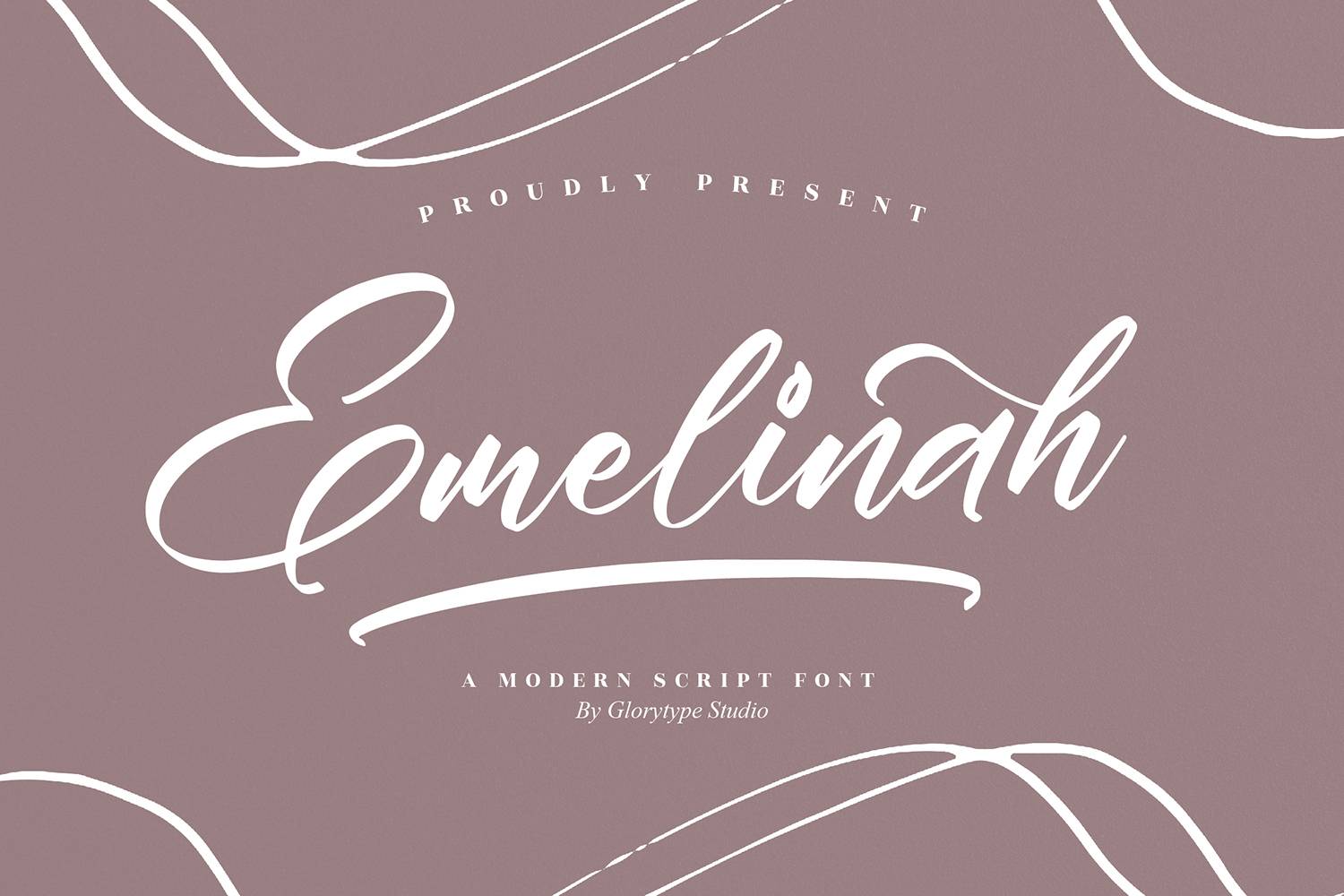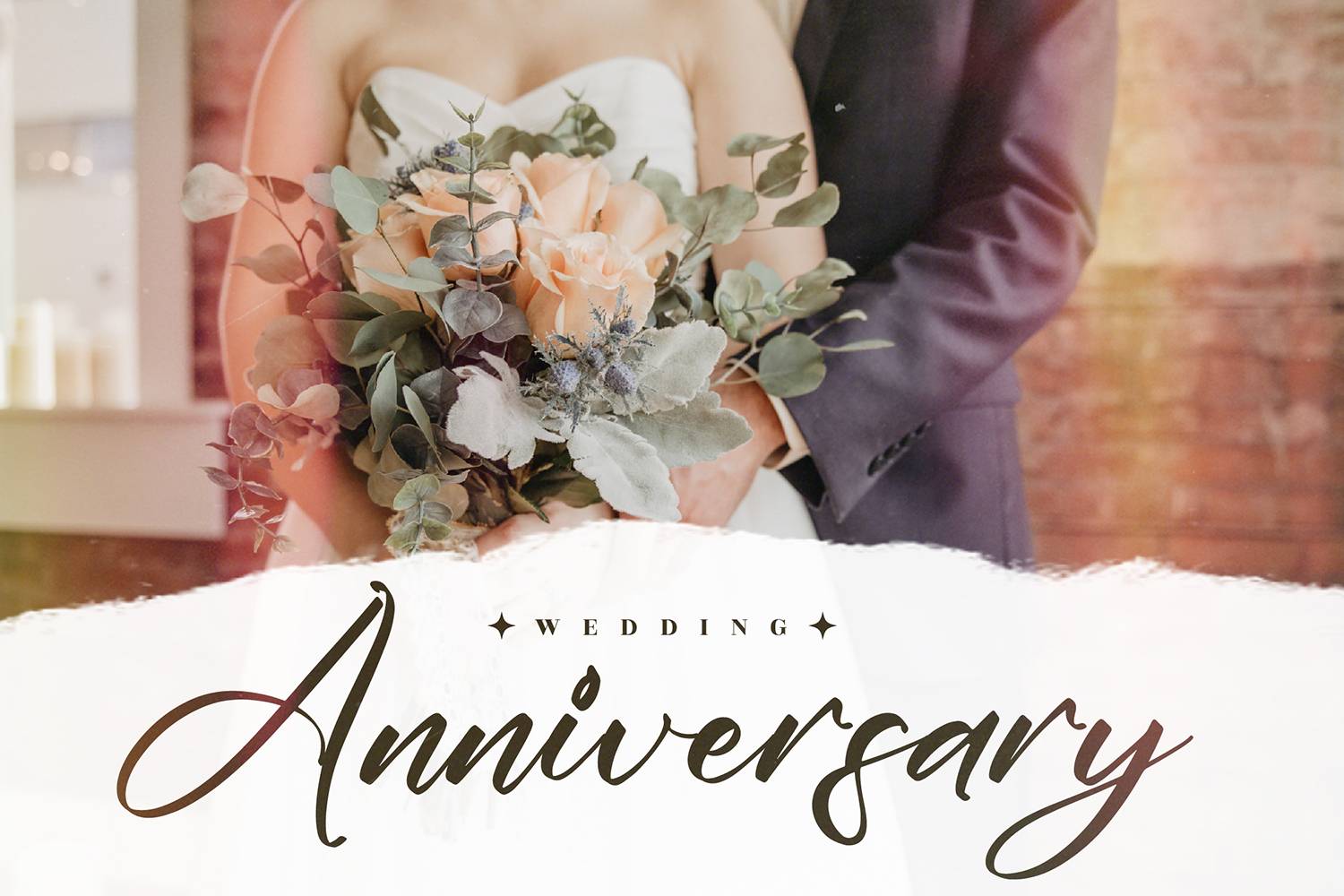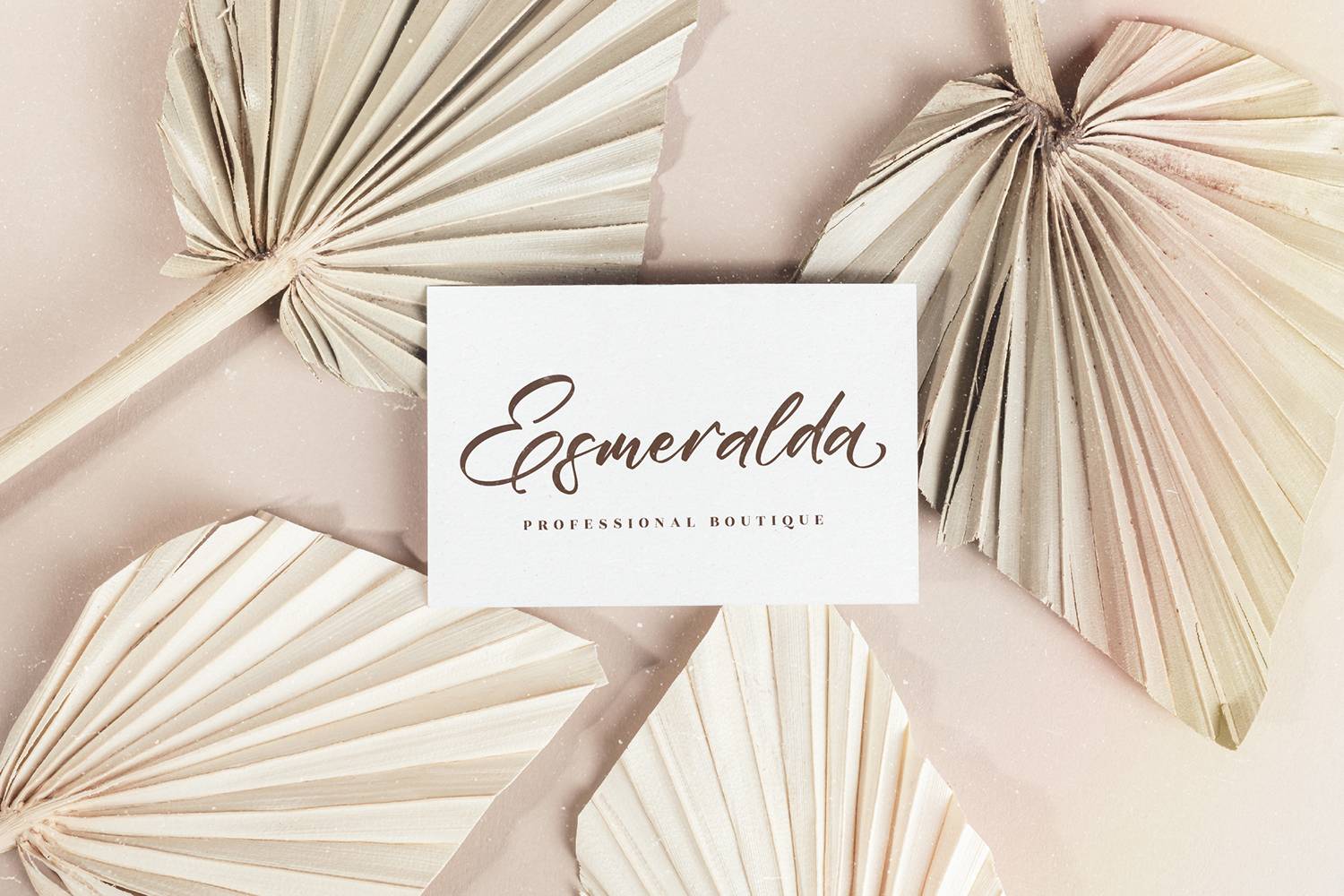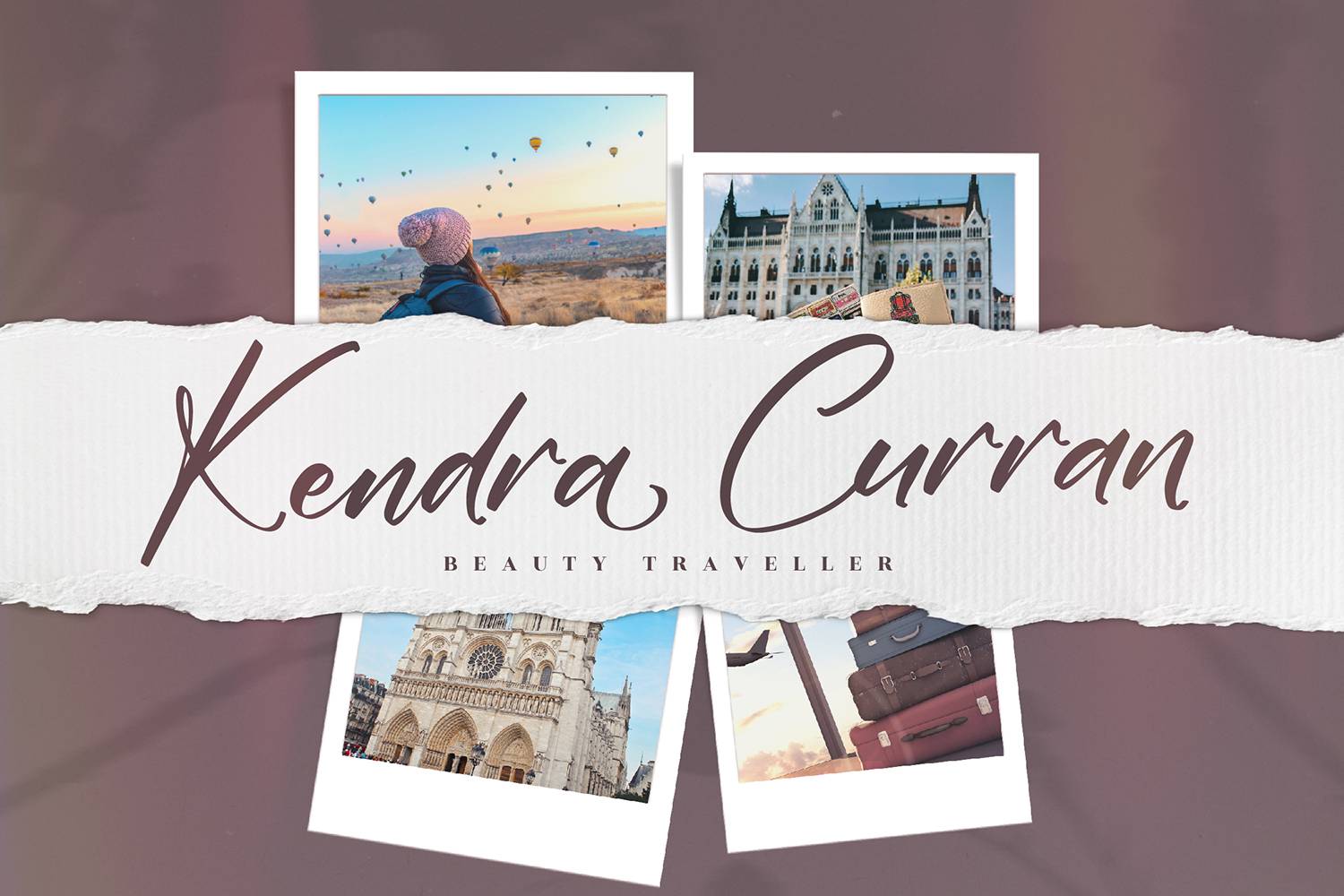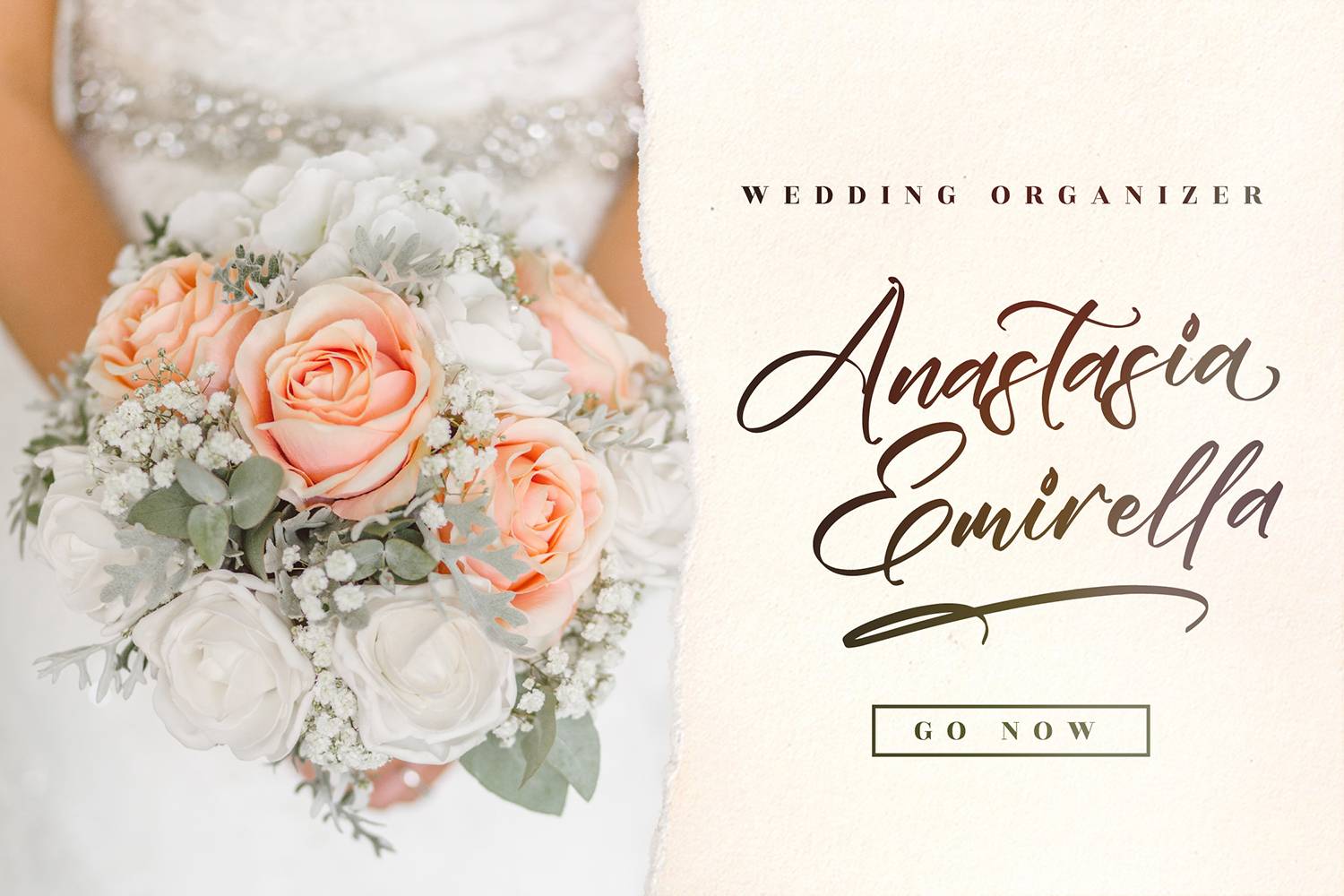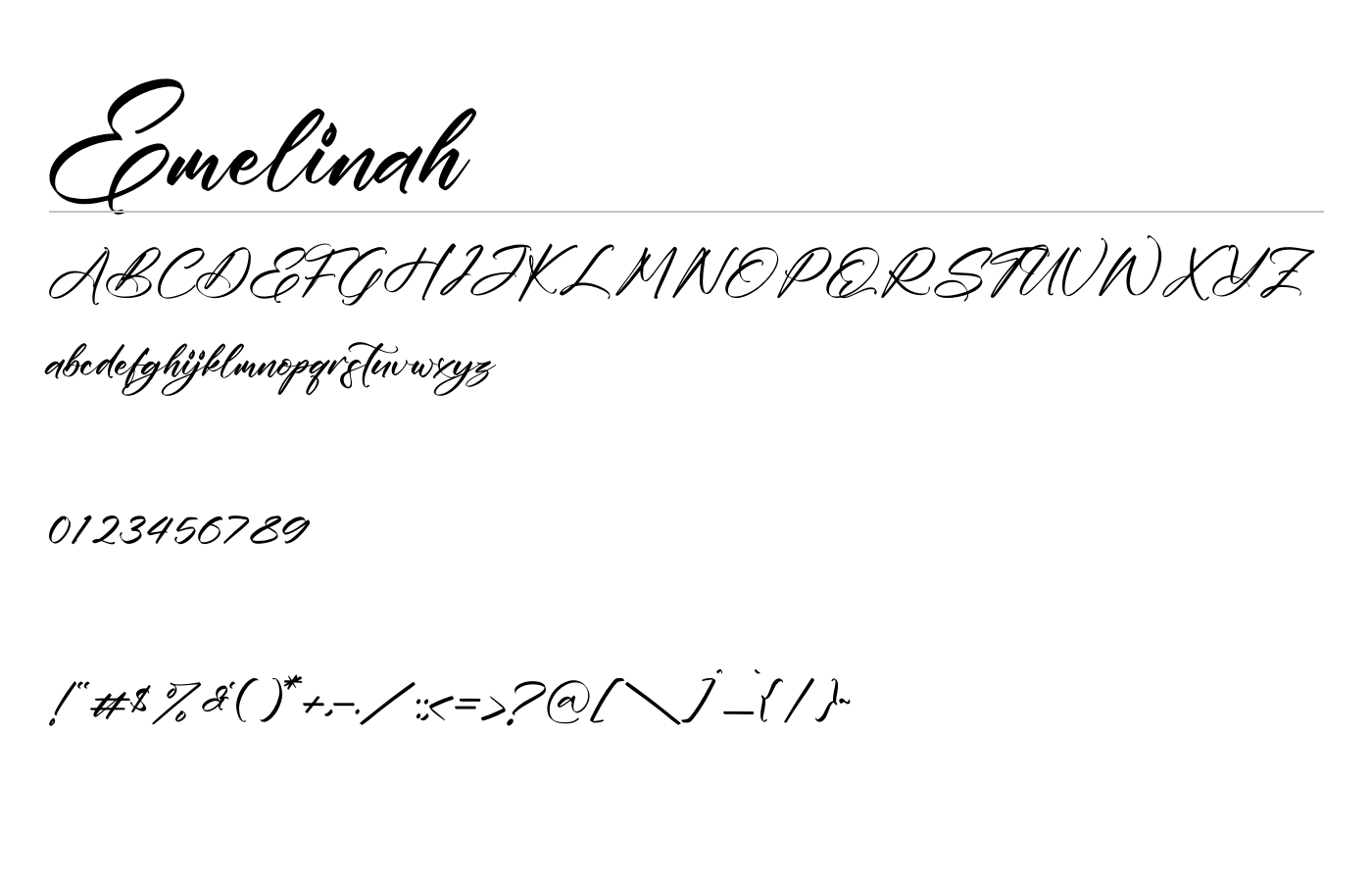
Emelinah is an elegant script font characterized by its flowing, handwritten style with smooth, graceful strokes and a moderate contrast that gives it a sophisticated yet approachable feel. Its slender letterforms and cursive connections make it ideal for invitations, branding, and other creative designs that need a touch of refinement and personality. This font shines in projects that seek a stylish, feminine, and artistic vibe.
Emelinah Font
About Emelinah Font